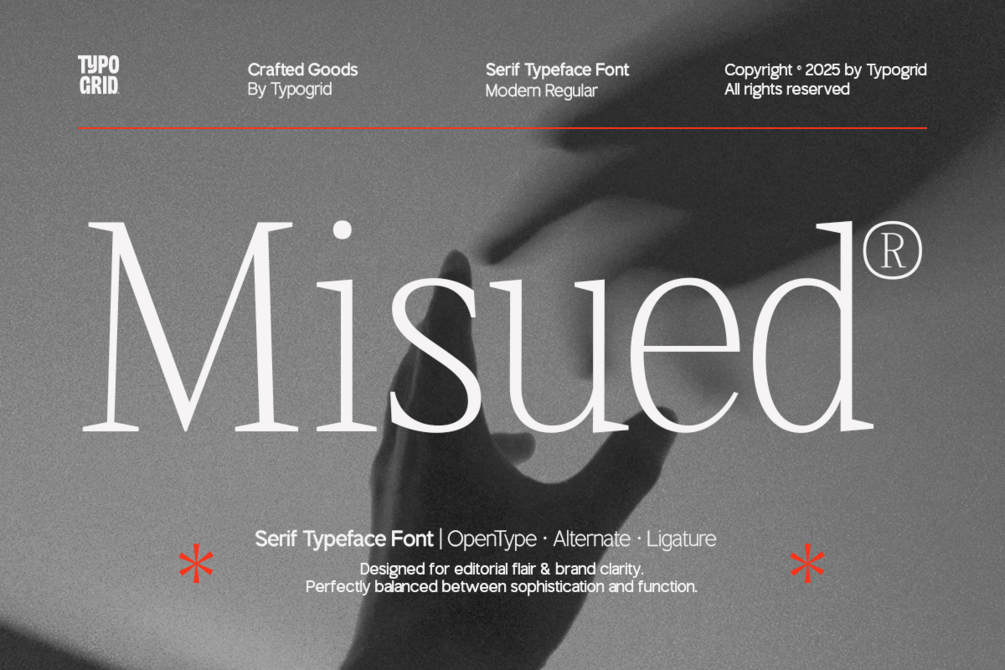
TG Missed Modern Serfi Typeface
Have you ever searched for a serif that speaks both clarity and character?
A typeface that feels at home in a luxury magazine spread yet performs effortlessly across digital screens? Introducing TG Misued, a serif typeface font meticulously crafted by Typogrid for the modern creative.
TG Misued isn’t just another serif. It’s a deliberate harmony between sharp editorial aesthetics and smart brand communication. With tall verticals, graceful curves, and subtle stroke contrasts, this typeface carries an aura of refinement—perfect for fashion lookbooks, journals, identity systems, and anywhere your typography needs to command respect quietly.
Engineered in OpenType format, TG Misued includes a generous palette of alternate glyphs and ligatures—each one created to elevate typographic storytelling. Whether you're typesetting refined headlines or building rich editorial layouts, this font gives you the expressive control to match your voice.
Designed for impact, but never overpowering, TG Misued is typography at its most poised—ready to bring structure, beauty, and timeless personality to your next visual narrative.
Alternate & Ligature